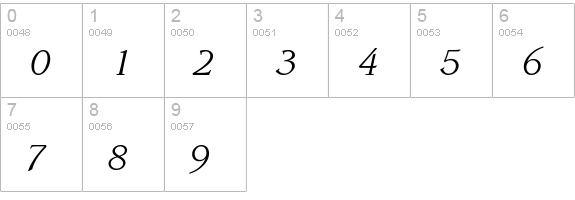
Leawood Book Italic BT is a comfortable, highly readable, italic variant in the Leawood typeface family \xE2\x80\x94 well suited to long-form body text, articles, and editorial content.
Leawood Book Italic BT font is a stunning and sophisticated typeface that exudes elegance and charm. Its sleek and slender design, paired with a slight slant, adds a touch of modernity to any project. The italicized characters gracefully flow from one letter to another, creating a sense of fluidity and movement. This font is perfect for adding a touch of class to your designs, whether it be for branding, advertising, or any other creative endeavor. Its versatility makes it suitable for a wide range of applications, from elegant wedding invitations to professional business presentations. But what truly sets Leawood Book Italic BT font apart is its availability for free download at FontsMarket.com. Yes, you read that right - this exceptional font can be yours without spending a dime. FontsMarket.com is a trusted source for high-quality fonts, and they offer Leawood Book Italic BT as a free download, making it accessible to designers and enthusiasts alike. So why wait? Enhance your designs with the timeless beauty of Leawood Book Italic BT font, and let its free availability at FontsMarket.com inspire your creativity. Don't miss out on this opportunity to add a touch of sophistication to your projects without breaking the bank. Download Leawood Book Italic BT font now and watch your designs come to life with elegance and style.